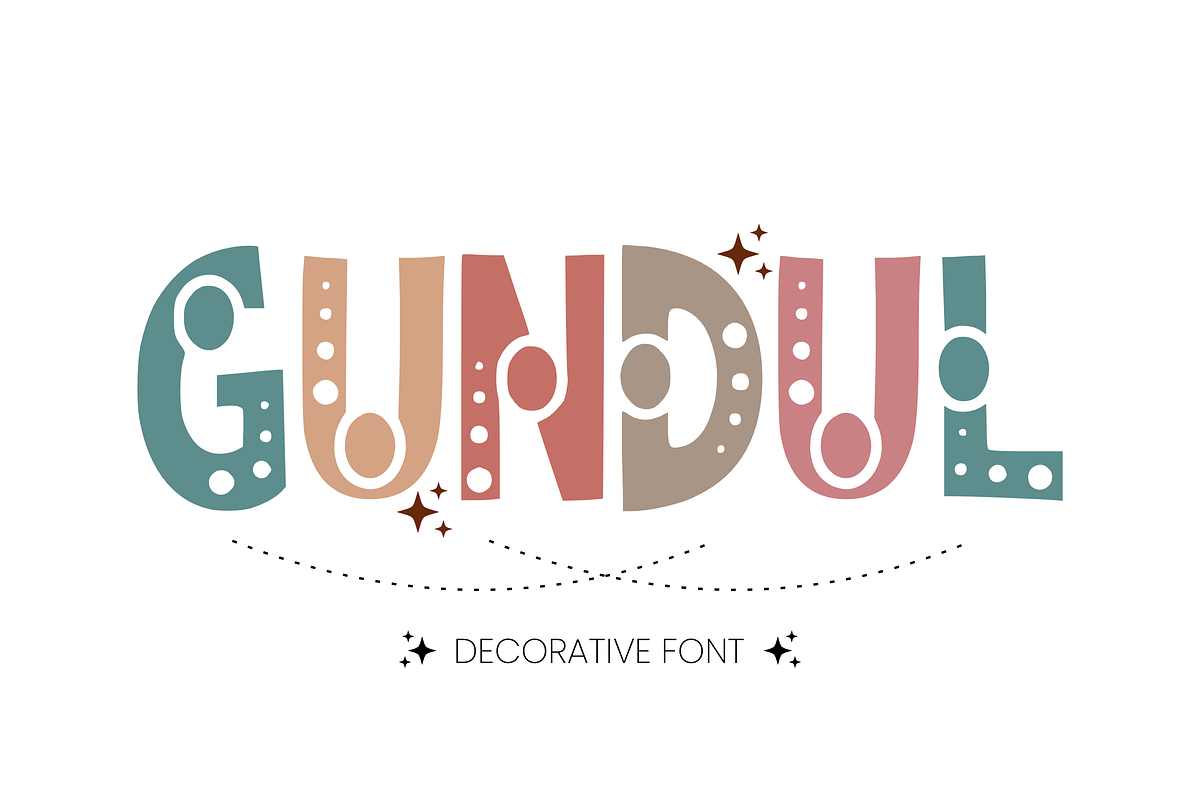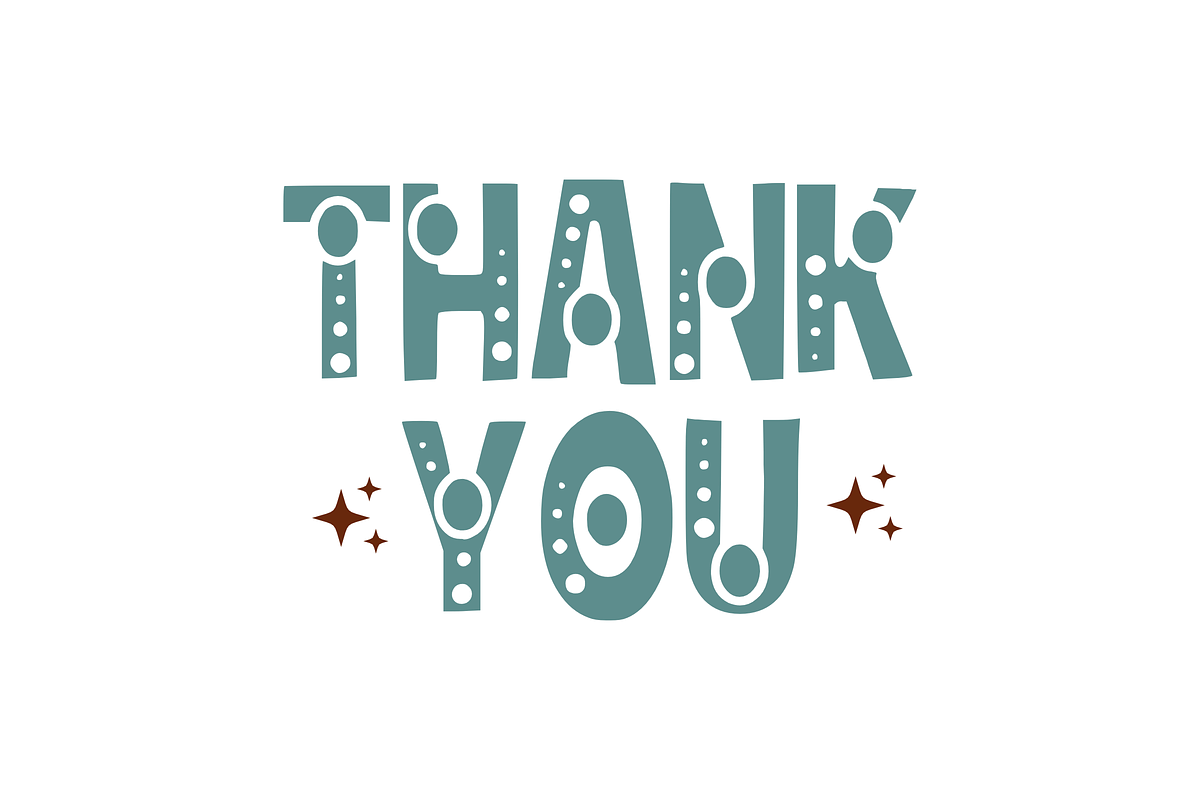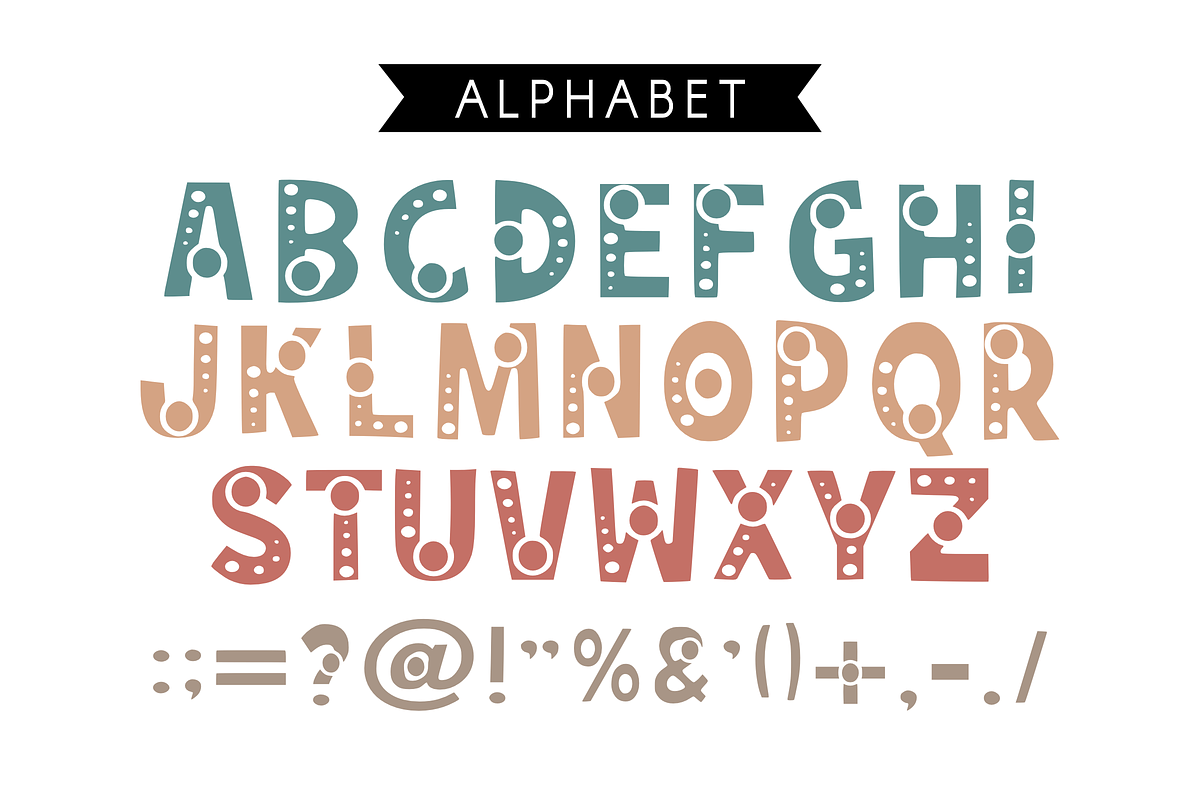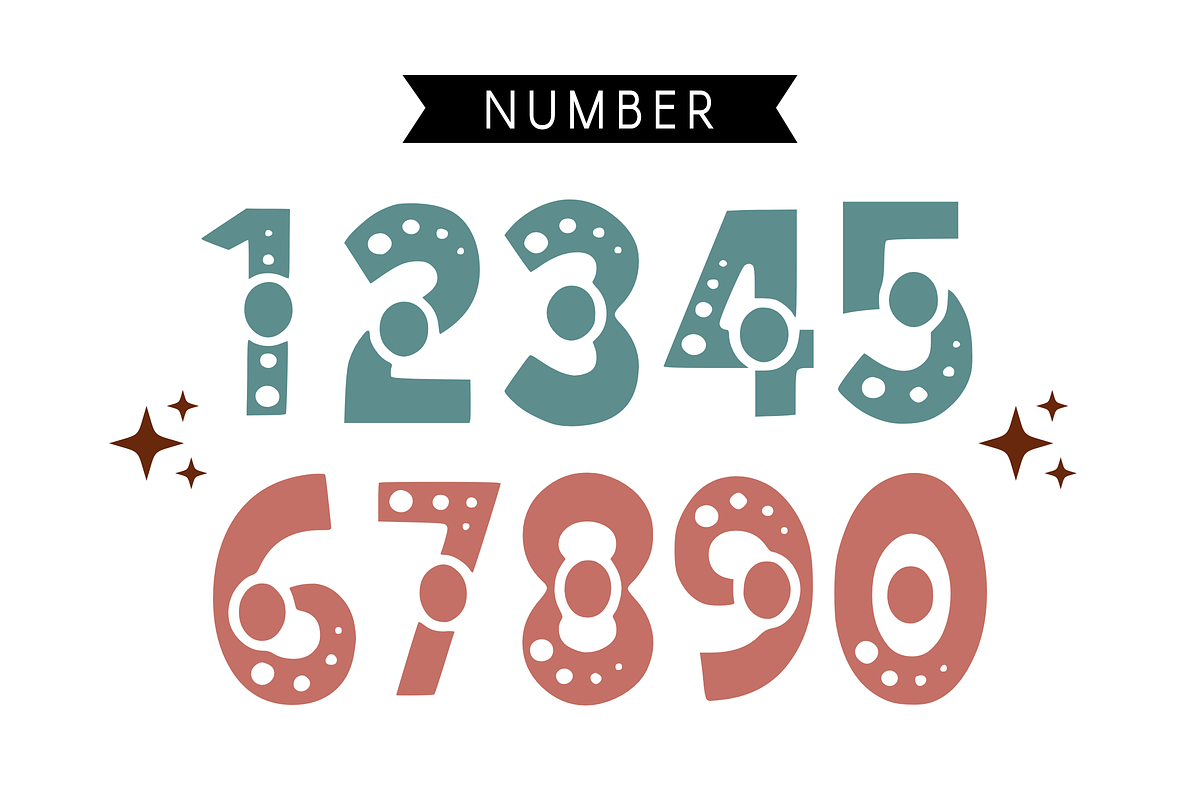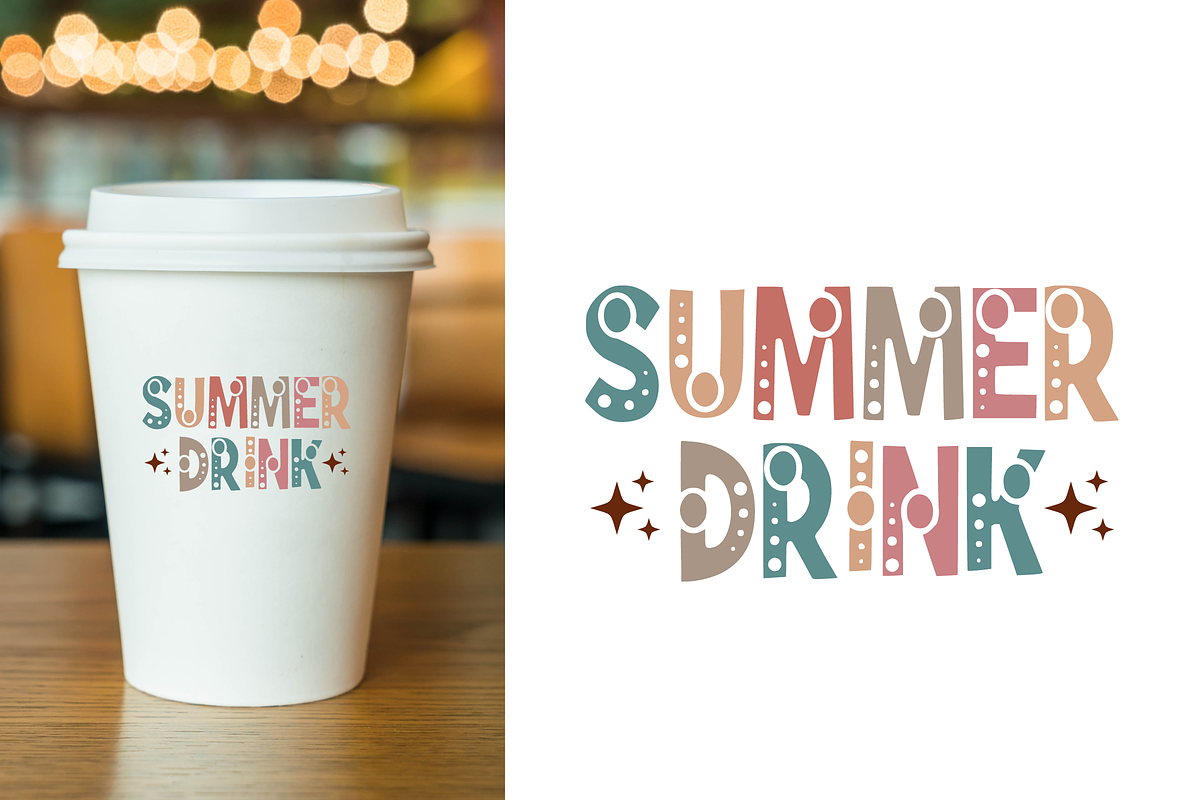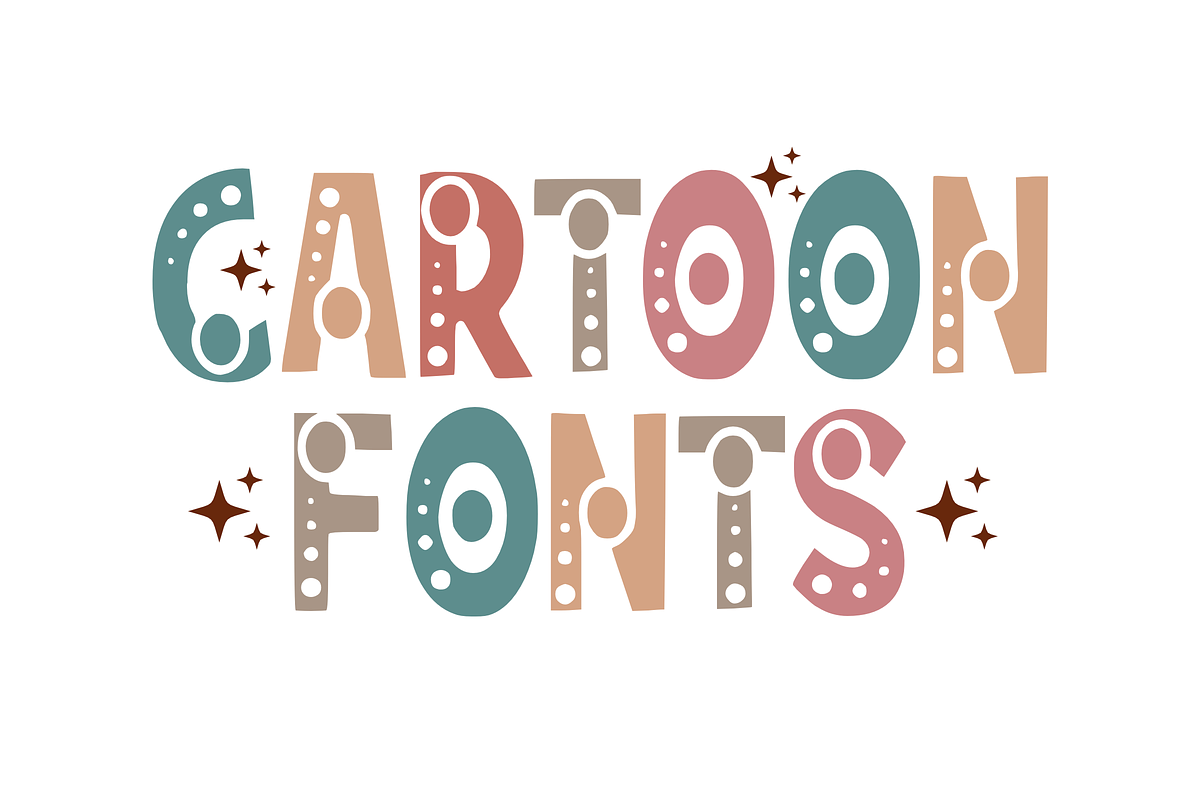
Gundul - Decorative Font Types
Welcome to “Gundul,” your perfect partner for all things summery and delightful! This adorable decorative typeface takes joy and elegance to a whole new level, offering an array of unique and cheerful characters. Dive into a world of creativity with Gundul—illustrate captivating comics, design distinctive stickers, print standout t-shirts, craft memorable mugs, and embark on enterprising embroidery. Experience the enchantment of carving with this exquisite font. Illuminate your innovativeness with Gundul and let your ideas leap off the page!